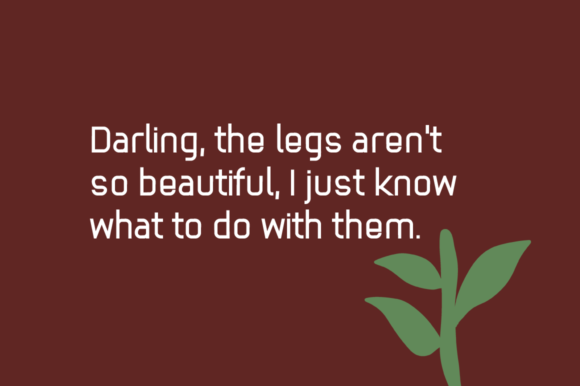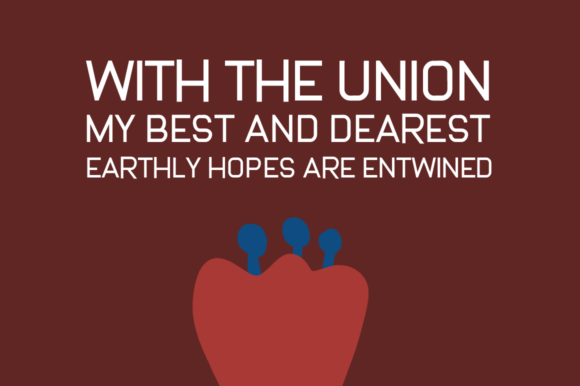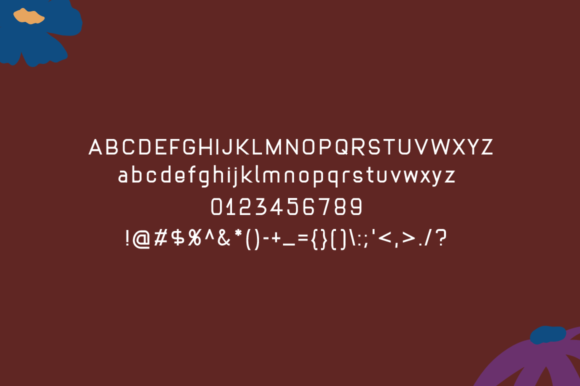
Epoch Bold Font: Elevate Your Designs with a Versatile and Stunning Display Font
Are you a designer or crafter looking for a font that can elevate your visual creations? Look no further than Epoch Bold Font. This fantastic display font is perfect for a wide range of applications, from stationery and logos to t-shirts, paper crafts, and digital designs. In this article, we’ll explore the features and benefits of Epoch Bold Font, and why it’s a must-have for any creative professional.
What is Epoch Bold Font?
Epoch Bold Font is a carefully crafted display font that boasts a unique and versatile style. Its bold and eye-catching design makes it perfect for grabbing attention and creating a lasting impression. Whether you’re working on a logo, a poster, or a website header, Epoch Bold Font is sure to make your design stand out from the crowd.
Key Features of Epoch Bold Font
- Versatile style: Epoch Bold Font is designed to be versatile, making it suitable for a wide range of applications, from print design to digital media.
- Bold and eye-catching: The font’s bold design ensures that your text will grab attention and make a lasting impression.
- Easily readable: Despite its bold style, Epoch Bold Font remains easily readable, even at smaller sizes.
- High-quality design: The font is carefully crafted to ensure that it looks great in any design, whether you’re working on a logo, a poster, or a website header.
Uses of Epoch Bold Font
Epoch Bold Font is perfect for a wide range of creative projects, including:
- Stationery: Add a touch of elegance to your business cards, letterheads, and envelopes with Epoch Bold Font.
- Logos: Create a bold and memorable logo for your brand with Epoch Bold Font.
- T-shirts and apparel: Design eye-catching t-shirts, hoodies, and other apparel with Epoch Bold Font.
- Paper crafts: Add a touch of sophistication to your paper crafts, such as cards, gift tags, and scrapbook pages, with Epoch Bold Font.
- Print design: Use Epoch Bold Font in your brochures, flyers, posters, and other print materials to grab attention.
- Website headers: Elevate your website’s design with Epoch Bold Font, perfect for headers, titles, and other prominent text elements.
- Photo frames and graphics: Add a touch of style to your photo frames, social media graphics, and other visual creations with Epoch Bold Font.
- Flyers and music covers: Design eye-catching flyers and music covers with Epoch Bold Font.
- Posters and image sliders: Use Epoch Bold Font to create stunning posters and image sliders that grab attention.
Benefits of Using Epoch Bold Font
By using Epoch Bold Font in your designs, you’ll enjoy a range of benefits, including:
- Improved brand recognition: Epoch Bold Font helps create a bold and memorable visual identity for your brand.
- Increased engagement: The font’s eye-catching design ensures that your text will grab attention and engage your audience.
- Enhanced creativity: Epoch Bold Font’s versatility and style inspire creativity and help you push the boundaries of your design.
- Time-saving: With Epoch Bold Font, you can quickly and easily create stunning designs that look professional and polished.